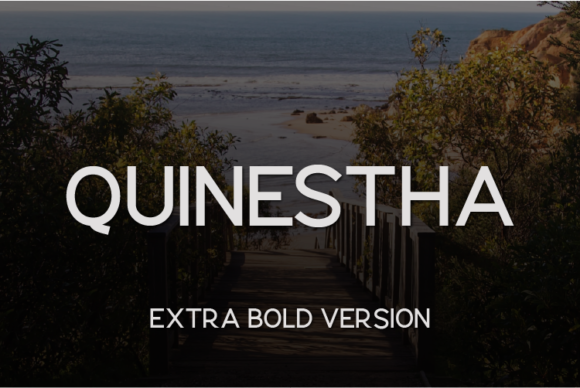
Step into the realm of typographic excellence with Quinestha Extra Bold, a font that embodies both simplicity and elegance. Its sharp contours and contemporary nuances exude a timeless charm that captivates and inspires. Designed with meticulous precision, this sans serif masterpiece guarantees optimal legibility and visual impact, making it the perfect choice for a wide spectrum of creative endeavors.
Immerse yourself in the world of branding and let Quinestha Extra Bold elevate your creations to new heights. Its bold strokes and unwavering consistency lend an air of authority and sophistication to logos, headlines, and any visual identity you envision. Its clean lines and modern aesthetic seamlessly integrate into the world of high fashion, adding a touch of understated luxury to your designs.
Quinestha Extra Bold's versatility extends far beyond the realm of branding. It effortlessly adapts to a myriad of design projects, from captivating social media posts and eye-catching website interfaces to visually stunning print materials. Its crisp edges and modern touches ensure that your message is conveyed with clarity and impact.
With Quinestha Extra Bold, the possibilities are limited only by your imagination. Its versatile nature makes it the perfect companion for any creative journey. Whether you're a seasoned designer, a budding entrepreneur, or an aspiring artist, this font is your gateway to typographic brilliance.
Quinestha Extra Bold is not just a font; it's an expression of your individuality, a reflection of your creative vision. Its timeless appeal and versatility make it an indispensable tool for anyone seeking to make a statement. Embrace the power of Quinestha Extra Bold and embark on a journey of typographic exploration that will leave a lasting impression on your audience.